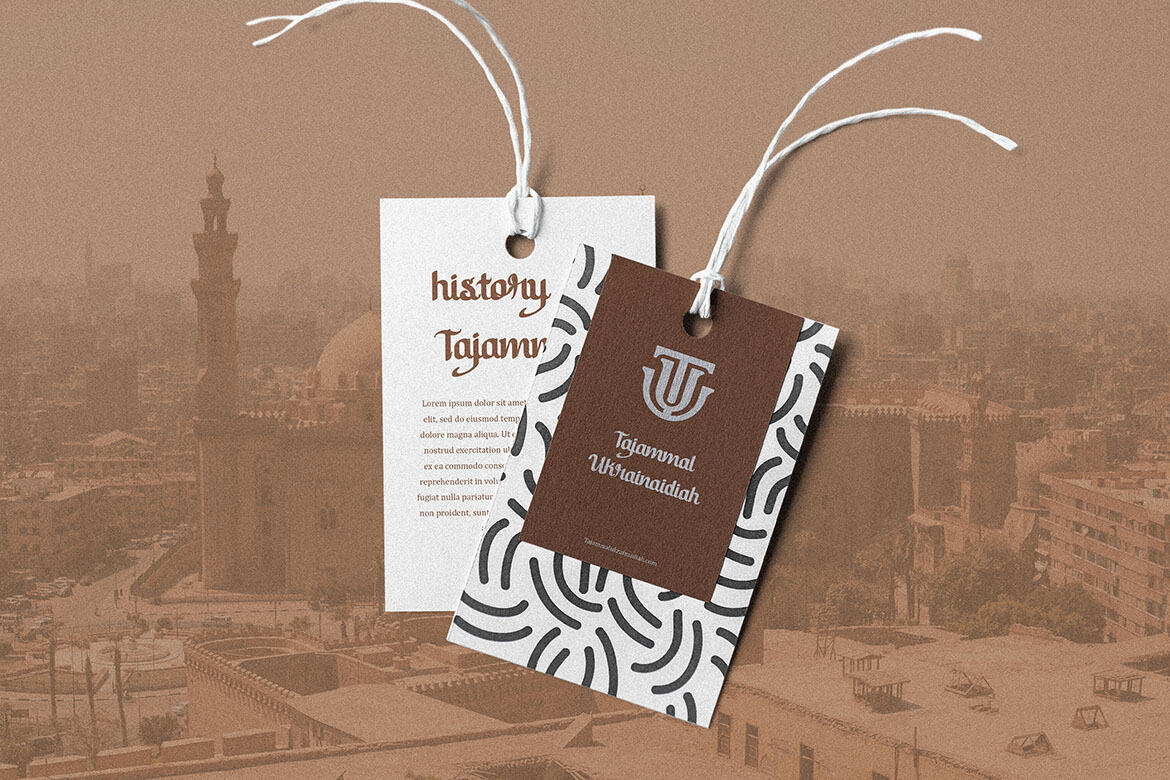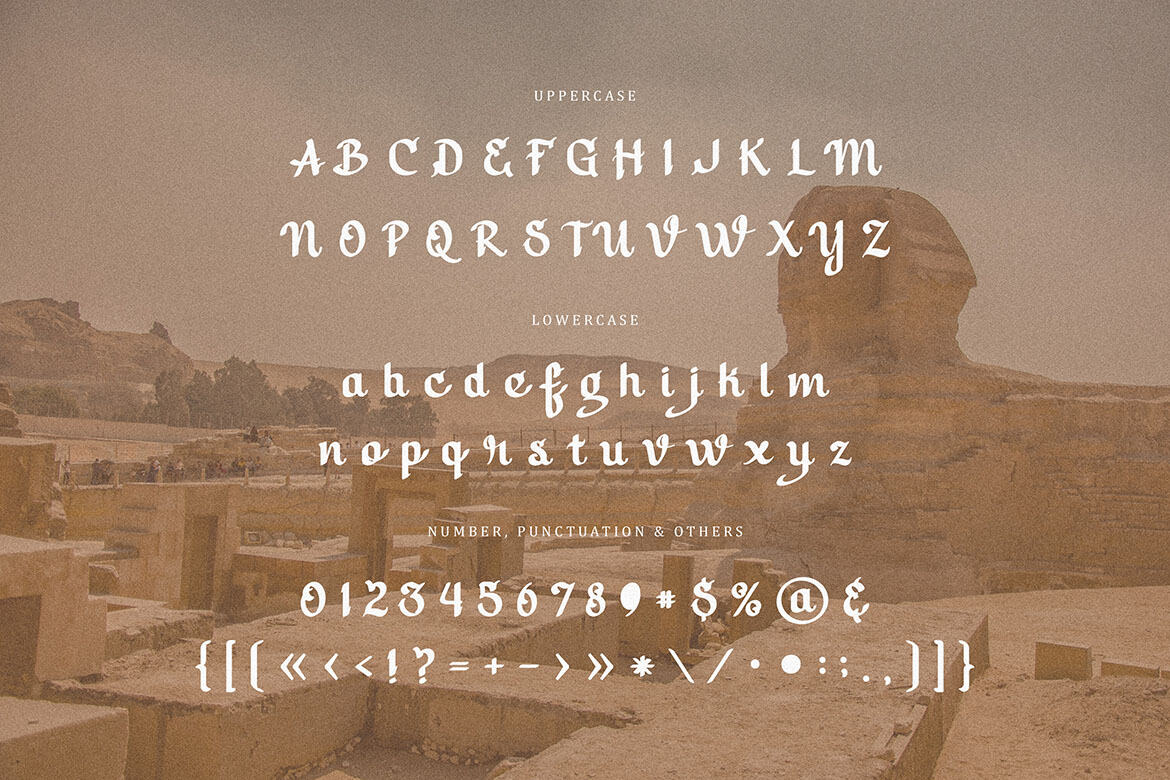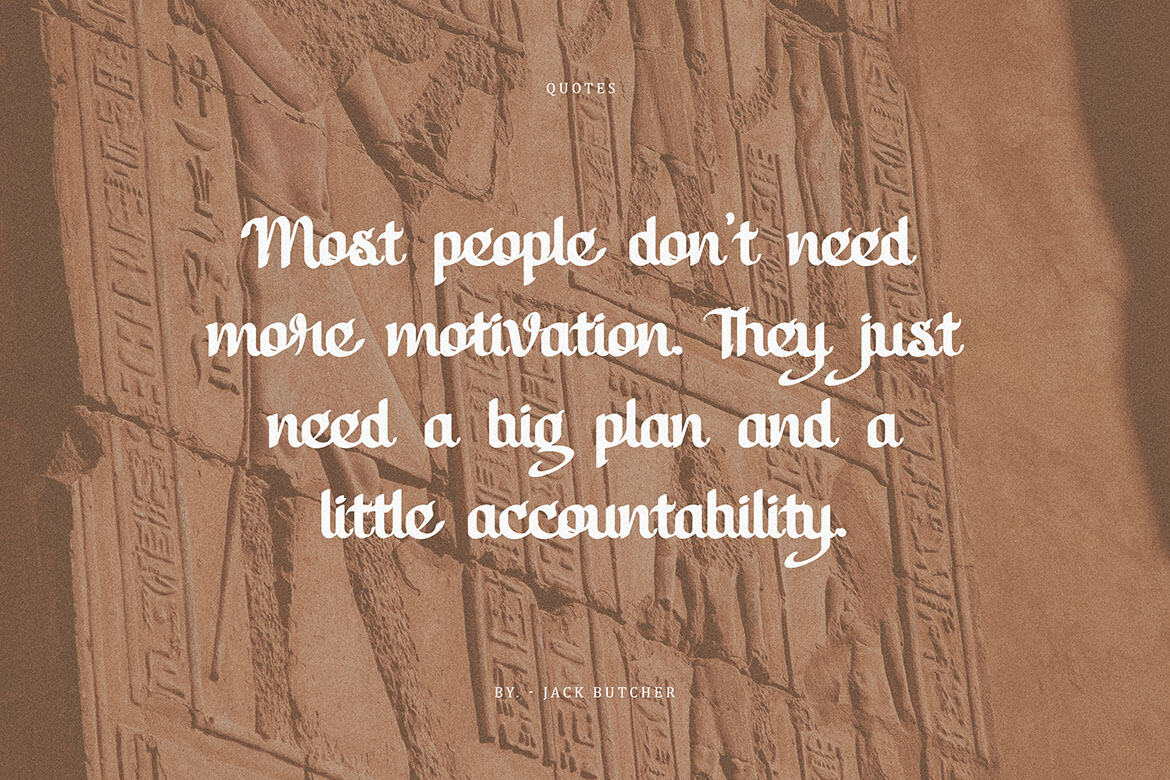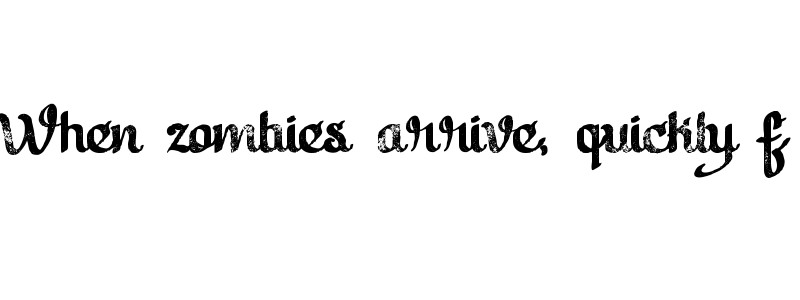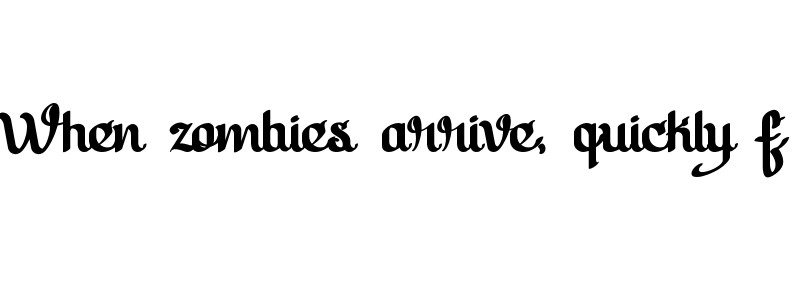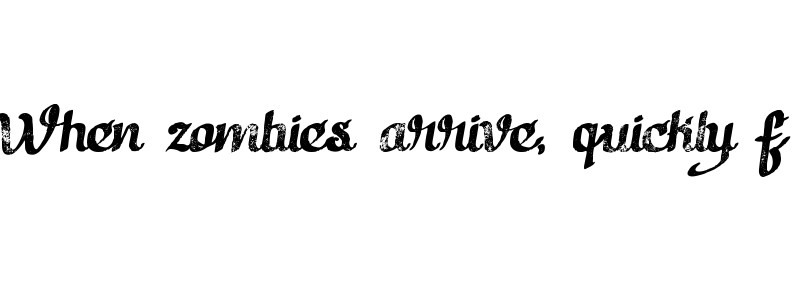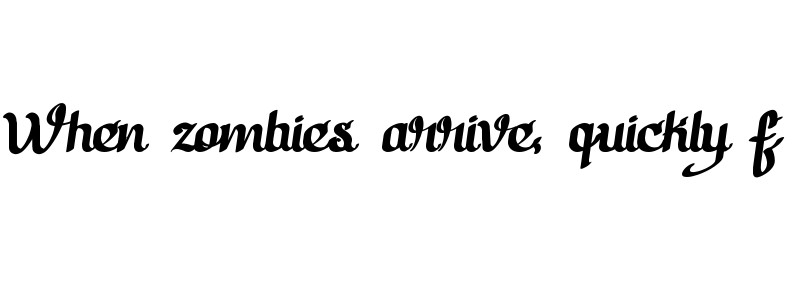
Carribean Script - Free Font
Vintage, decorative, retro & classy script font. Great for your new logo or branding project.
• 4 font styles included
• great for retro or vintage style branding projects